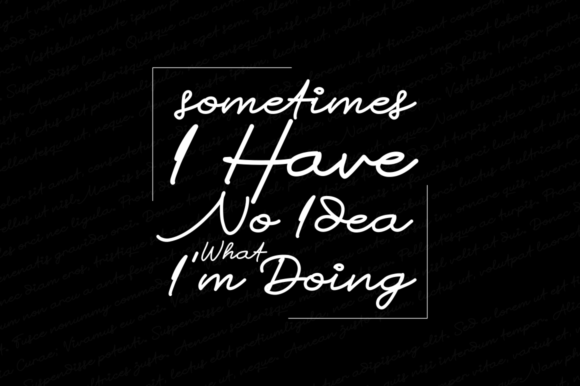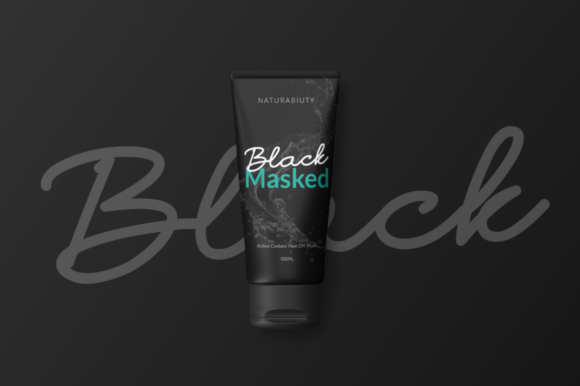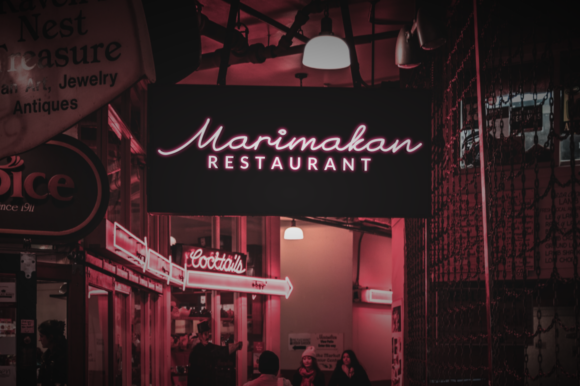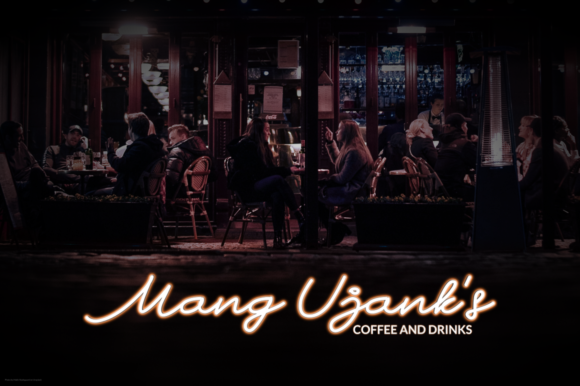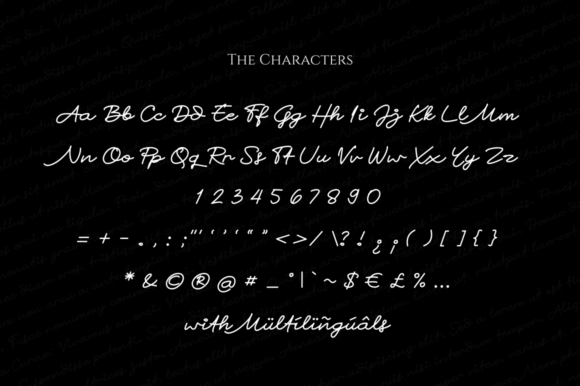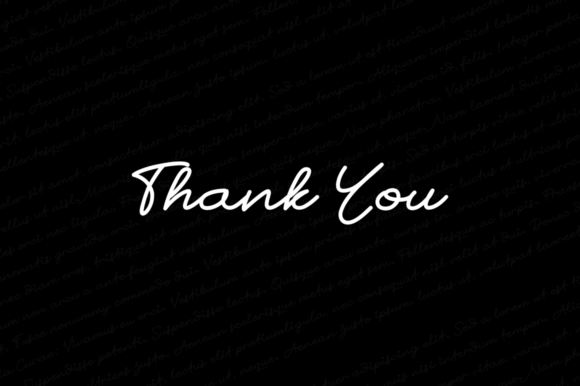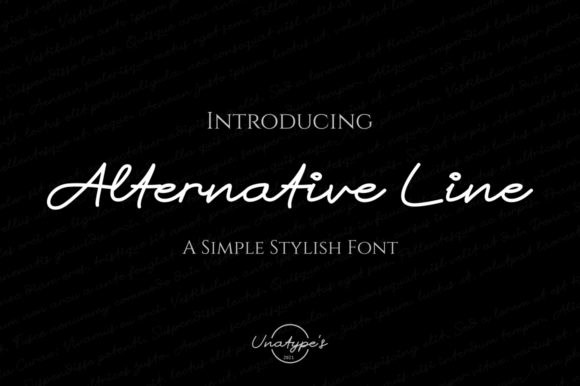
Discover the Beauty of Alternative Line Font: A Monoline Script Font with a Cursive Twist
Are you a designer or crafter looking for a typeface that exudes a natural and authentic style? Look no further than the Alternative Line Font, a stunning monoline script font with a cursive flair. This lovely font is perfect for those seeking to add a touch of elegance and sophistication to their creations.
What is Alternative Line Font?
Alternative Line Font is a monoline script font that boasts a unique cursive style, where many characters are smoothly connected to create a flowing and harmonious look. This font is designed to mimic the natural flow of handwriting, making it perfect for a variety of design projects, from branding and packaging to invitations and stationery.
Key Features of Alternative Line Font
• Monoline script font: Alternative Line Font features a consistent line width, giving it a clean and modern look.
• Cursive style: The font’s cursive style creates a smooth and flowing connection between characters, making it perfect for creating elegant and sophisticated text.
• Smoothly connected characters: Many characters in the font are connected, creating a natural and authentic look that’s perfect for designers and crafters.
• Natural and authentic style: The font’s unique style makes it perfect for designers seeking to add a touch of elegance and sophistication to their creations.
Uses of Alternative Line Font
Alternative Line Font is a versatile typeface that can be used in a variety of design projects, including:
• Branding and packaging: The font’s elegant and sophisticated style makes it perfect for creating high-end branding and packaging designs.
• Invitations and stationery: The font’s cursive style and flowing connections make it perfect for creating beautiful invitations and stationery.
• Digital design: The font’s clean and modern look makes it perfect for digital design projects, such as website headers and social media graphics.
• Crafting and DIY projects: The font’s unique style makes it perfect for crafters and DIY enthusiasts looking to add a personal touch to their projects.
Benefits of Using Alternative Line Font
Using Alternative Line Font in your design projects offers a range of benefits, including:
• Unique and distinctive look: The font’s cursive style and smoothly connected characters create a unique and distinctive look that’s sure to stand out.
• Elegant and sophisticated style: The font’s elegant and sophisticated style makes it perfect for high-end design projects.
• Versatility: The font’s versatility makes it perfect for a range of design projects, from branding and packaging to invitations and stationery.
• Easy to read: The font’s clean and modern look makes it easy to read, even at small sizes.
Tips for Using Alternative Line Font
Here are some tips for using Alternative Line Font in your design projects:
• Use it sparingly: Use the font sparingly to create a sense of elegance and sophistication.
• Pair it with other fonts: Pair the font with other fonts to create a unique and interesting look.
• Experiment with different sizes: Experiment with different sizes to find the perfect balance for your design.
• Use it for headlines and titles: Use the font for headlines and titles to create a bold and eye-catching look.
In conclusion, Alternative Line Font is a stunning monoline script font with a cursive twist that’s perfect for designers and crafters seeking to add a touch of elegance and sophistication to their creations. With its unique style, versatility, and ease of use, this font is sure to become a favorite in your design toolkit.